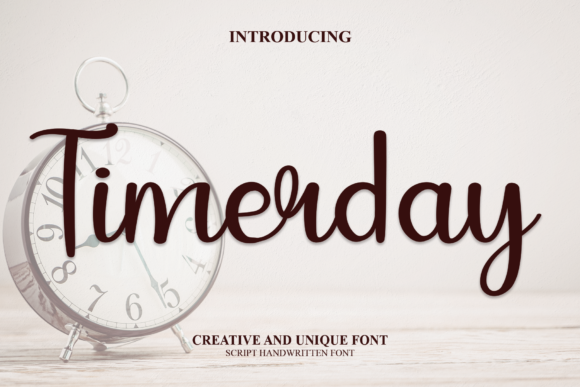
About Timerday Font
Timerday is a handwritten font that embodies beauty and fluidity. Its unique style makes it a perfect choice for a variety of applications. Whether itβs for wall hangings, wedding invitations, social media post logos, advertising, product packaging, product design, labels, photography, watermarks, invitations, stationery, or any other design that requires impressive typography, Timerday is sure to impress.
The charm of Timerday lies in its ability to add a personal and intimate feel to any design. Its beautiful and flowing style can bring a sense of elegance and sophistication to your designs, making them more engaging and appealing to the audience.
In conclusion, Timerday is more than just a font. Itβs a design tool that can add a touch of beauty and fluidity to your designs. Its unique style and versatility make it a valuable asset for any designer. So, why wait? Incorporate Timerday into your design today and witness the transformation. Experience the difference that a truly beautiful and flowing font can make. Experience Timerday.
With Timerday, youβre not just choosing a font. Youβre choosing a font that will make your design stand out, a font that will add character to your text, and a font that will leave a lasting impression on your audience. Choose Timerday, and let your design speak for itself.
So, if youβre looking for a font thatβs beautiful, flowing, and has aesthetic value, look no further than Timerday. Itβs the perfect font for any design project, and itβs sure to make your design stand out. Try Timerday today, and see the difference it can make in your design.